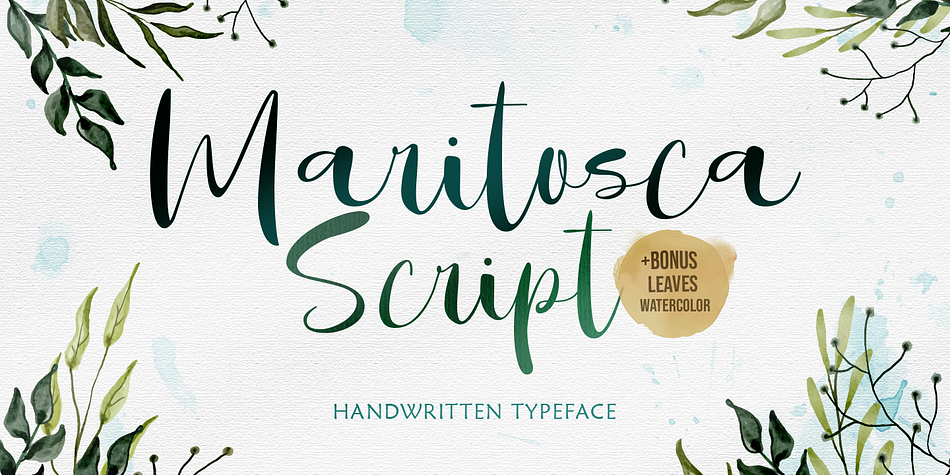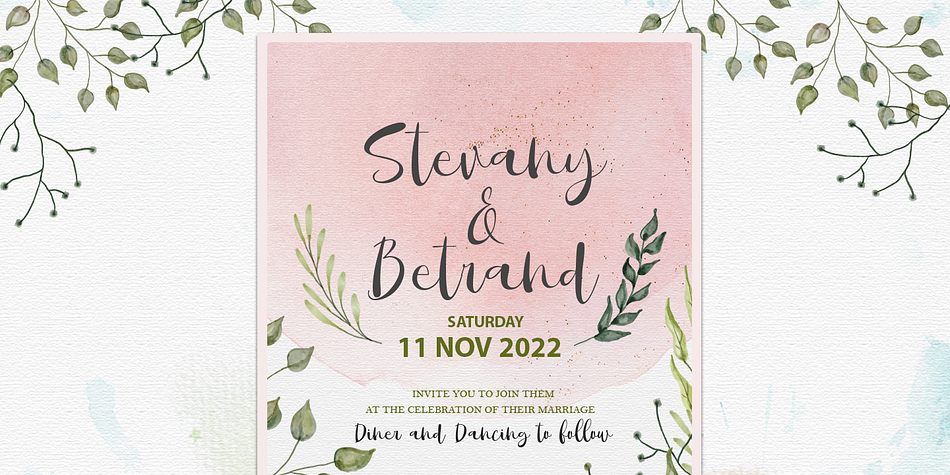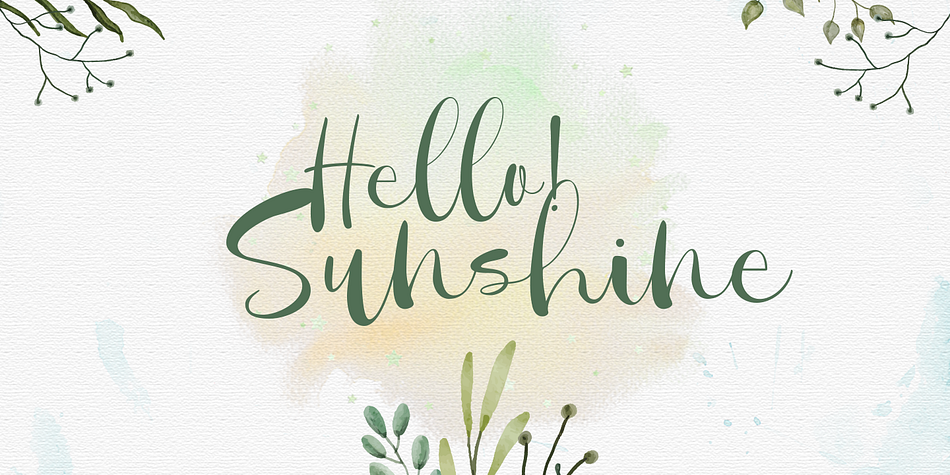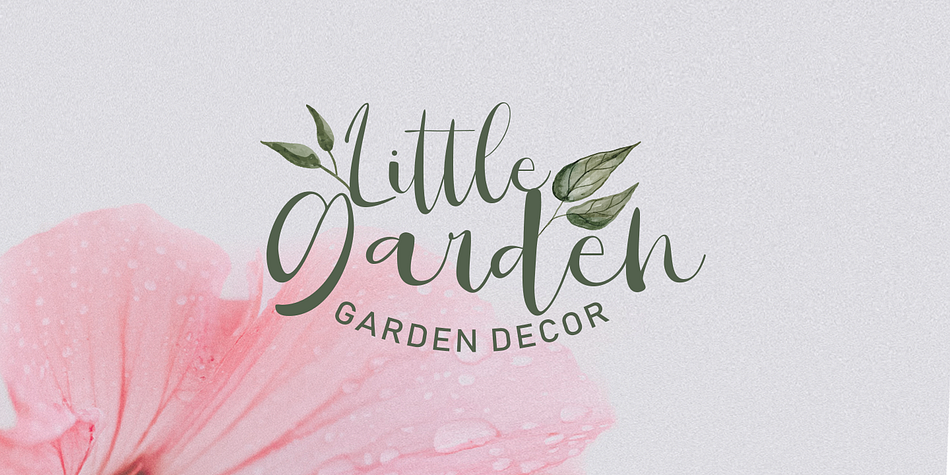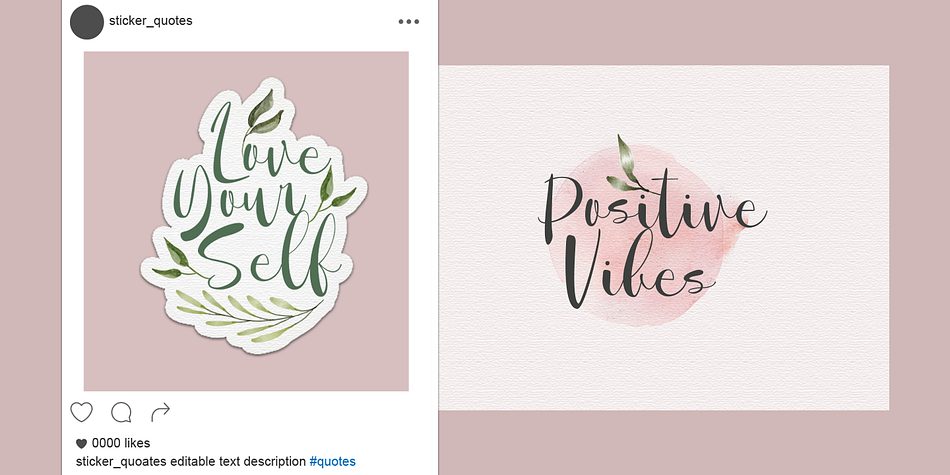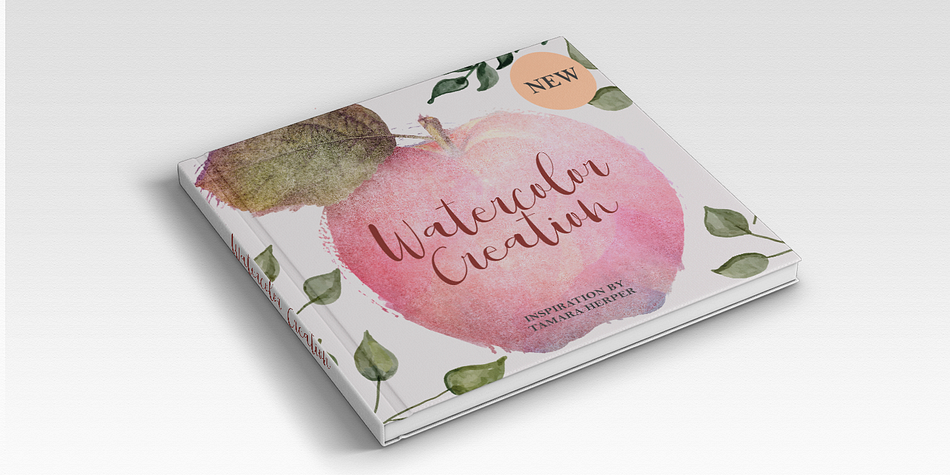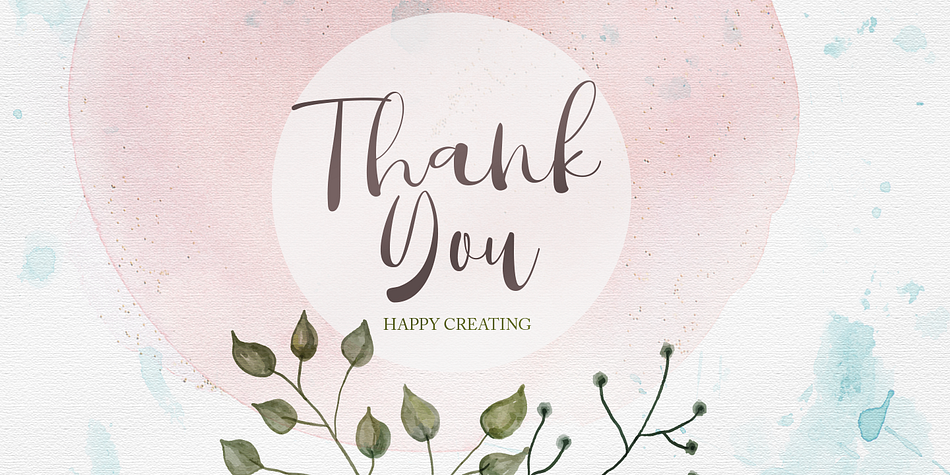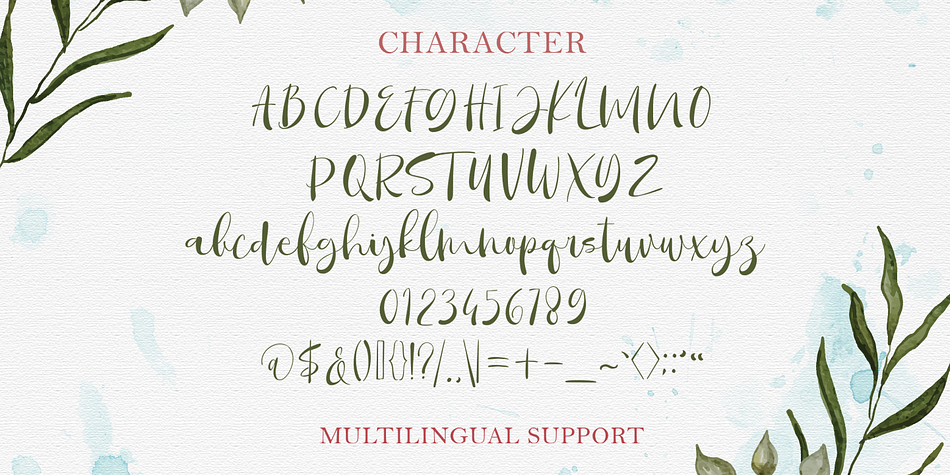
Maritosca Script
Designed by Hendry Juanda, Maritosca Script is a modern calligraphy and script font published by Letterhend Studio.
Introducing, Maritosca Script - a typeface inspired by natural handwritten. You can get bonus beautiful leaves watercolor in AI file format so you can play around with it. This type of font perfectly made to be applied especially in logo, and the other various formal forms such as invitations, labels, logos, magazines, books, greeting / wedding cards, packaging, fashion, make up, stationery, novels, labels or any type of advertising purpose.
- alternates and ligatures
- swashes